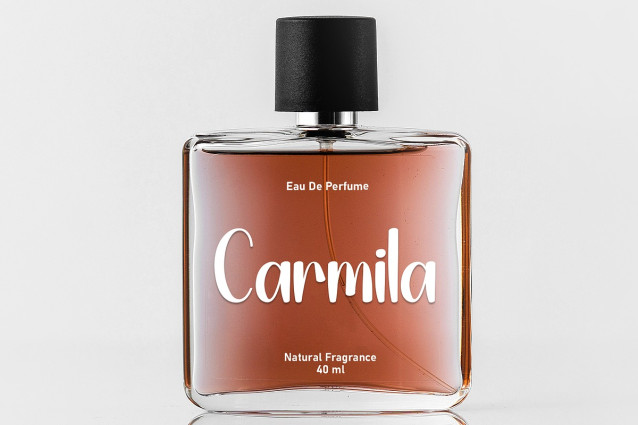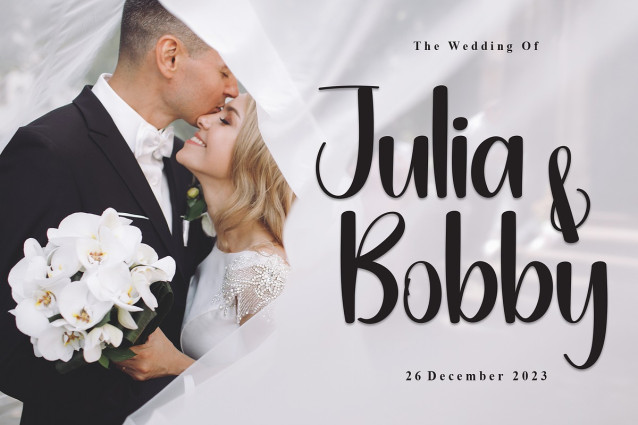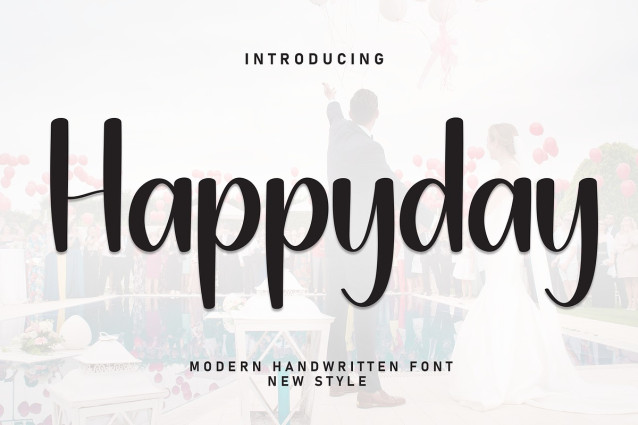
Happyday Handwritten Font
Happyday Handwritten Font A popular and professional script font. Modern and elegant, this typeface is made of beautiful creative strokes.This font is perfect for your creative ideas, both formal and informal. It has a modern style with a touch of creative ideas that is very suitable to be applied anywhere that requires creative ideas such as invitation cards,letterheads, website logos, social media, banners, advertisements, brochures, packaging products, leather products, and any product that requires writing.
By using this font, all of your products will look luxurious, elegant, and attractive, please try and see the results.This font includes a complete set of beautiful upper and lowercase letters, numbers, a wide variety of punctuation marks, and ligatures. All lowercase letters include a start and end, providing a realistic style. everything you get.